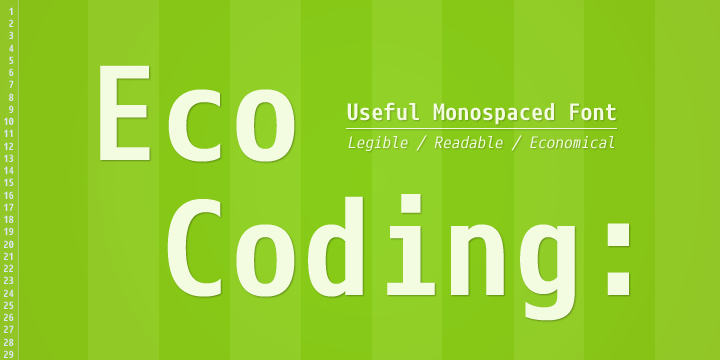
Eco Coding Font is perfect for eco-friendly tech branding, green startups, environmental blogs, sustainable product packaging, educational materials, and digital interfaces. Its clean, modern design reflects both efficiency and care for the planet.
What makes Eco Coding Font so exciting is its unique fusion of minimalist coding aesthetics with organic shapes. This font symbolizes the harmony between technology and nature, making your projects stand out with thoughtful style.
The font family typically includes Regular, Bold, and Italic styles, giving designers the flexibility to create dynamic and engaging typography.
If you want to emphasize sustainability and innovation in your designs, Eco Coding Font Free Download is an excellent choice. Let this font power your eco-conscious projects with clarity and creativity.